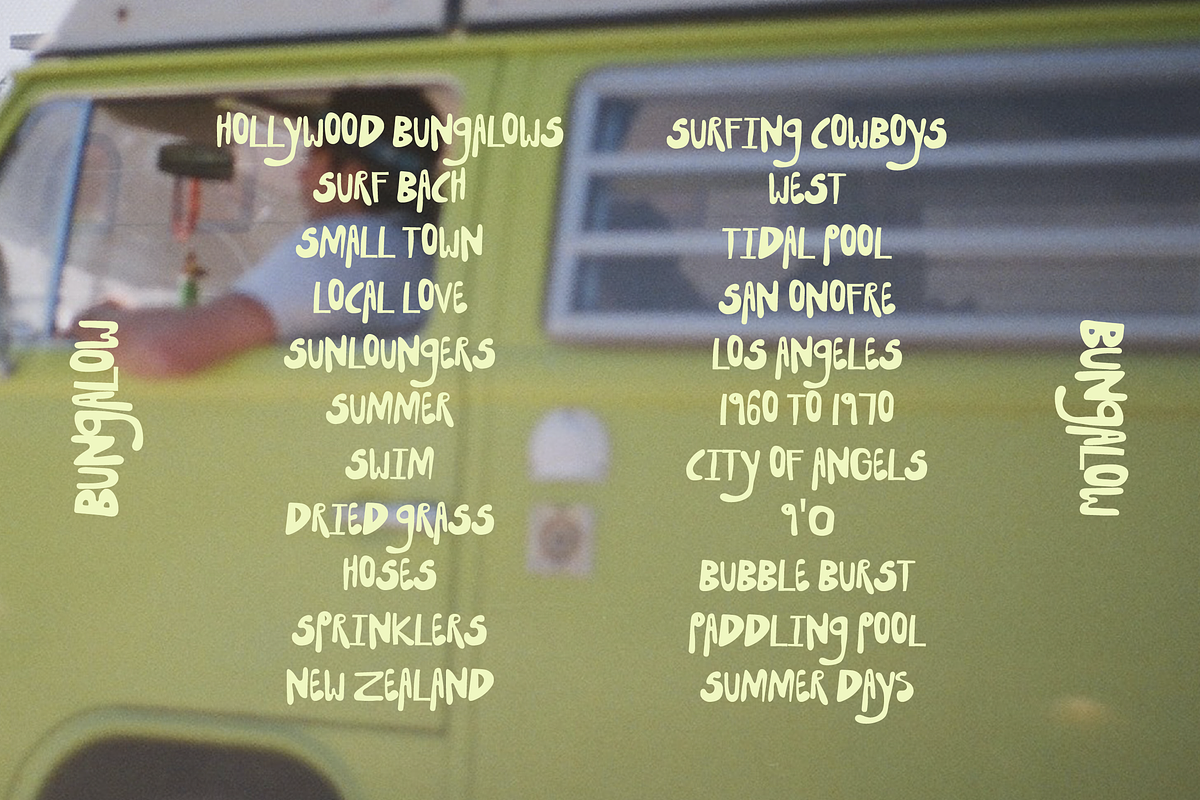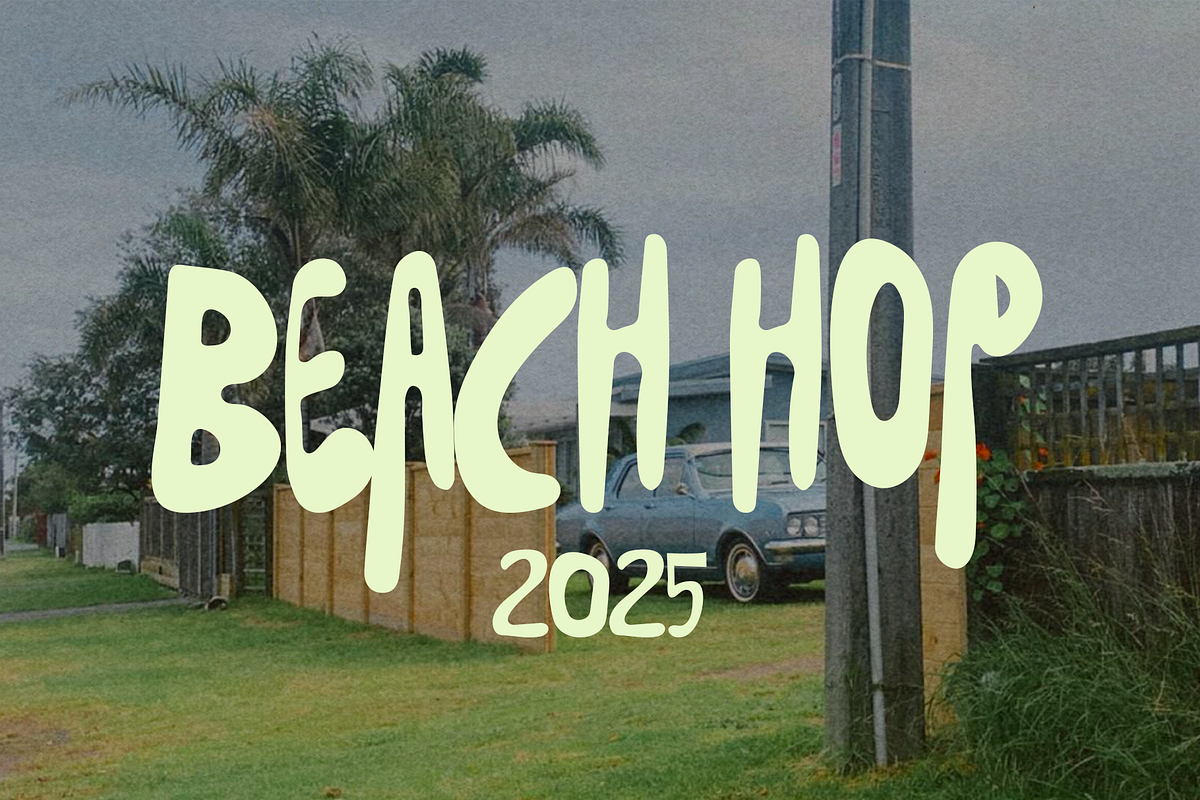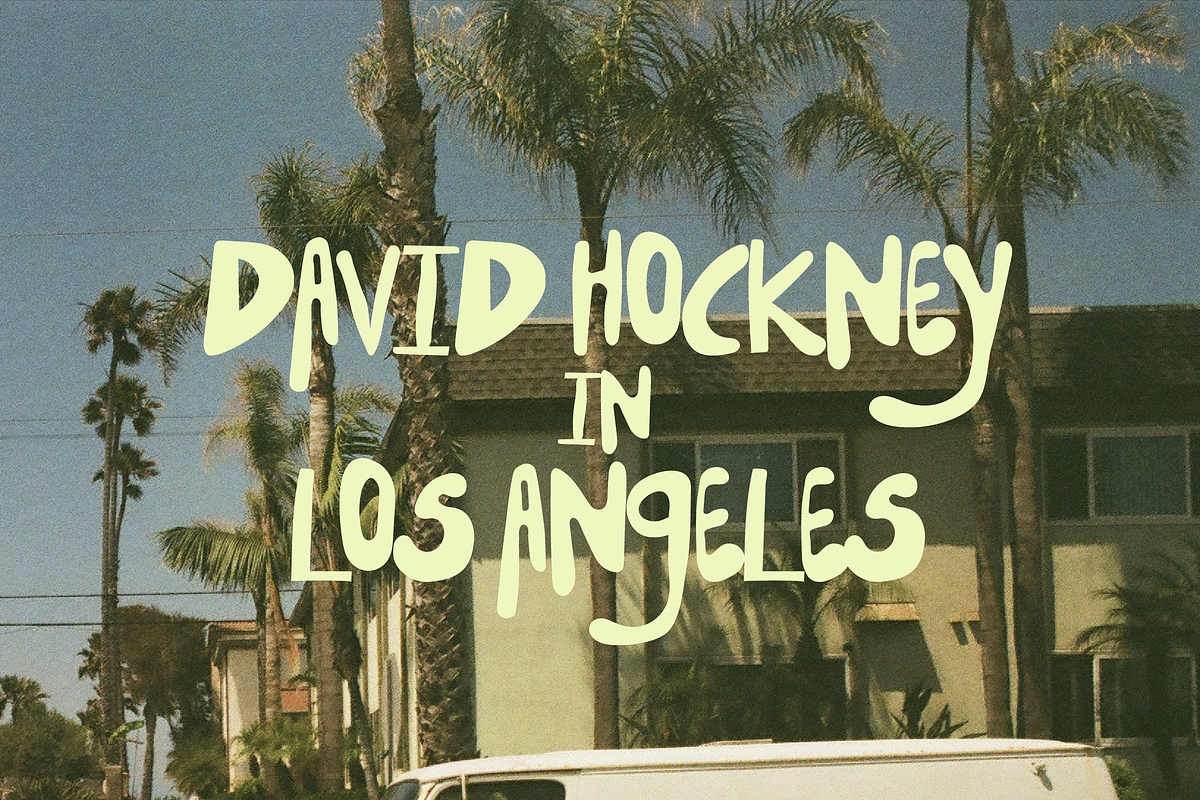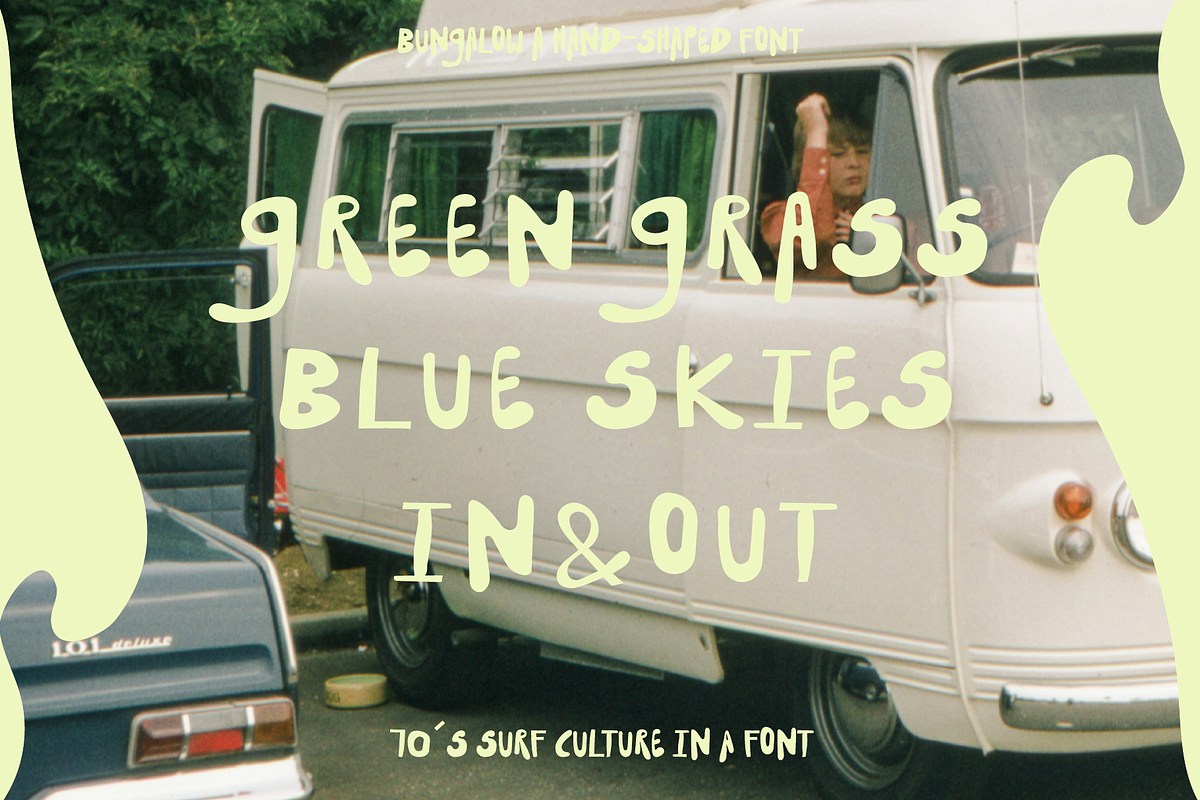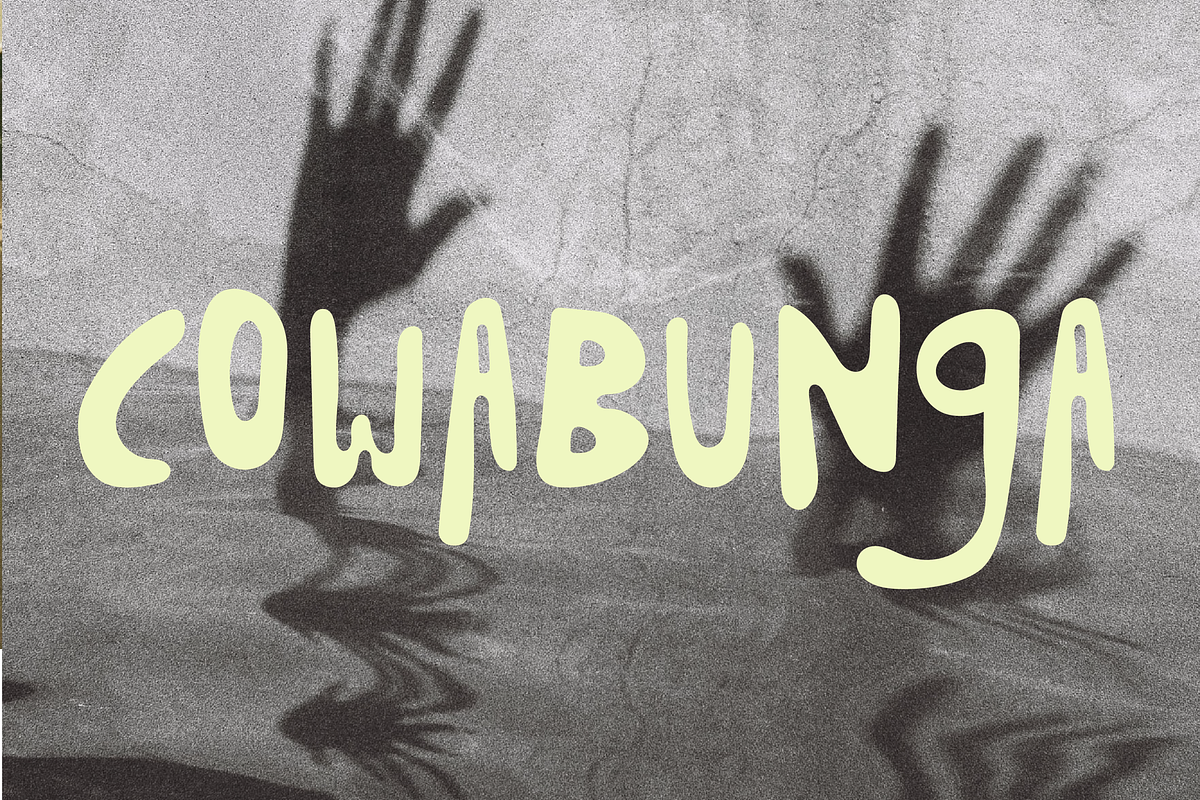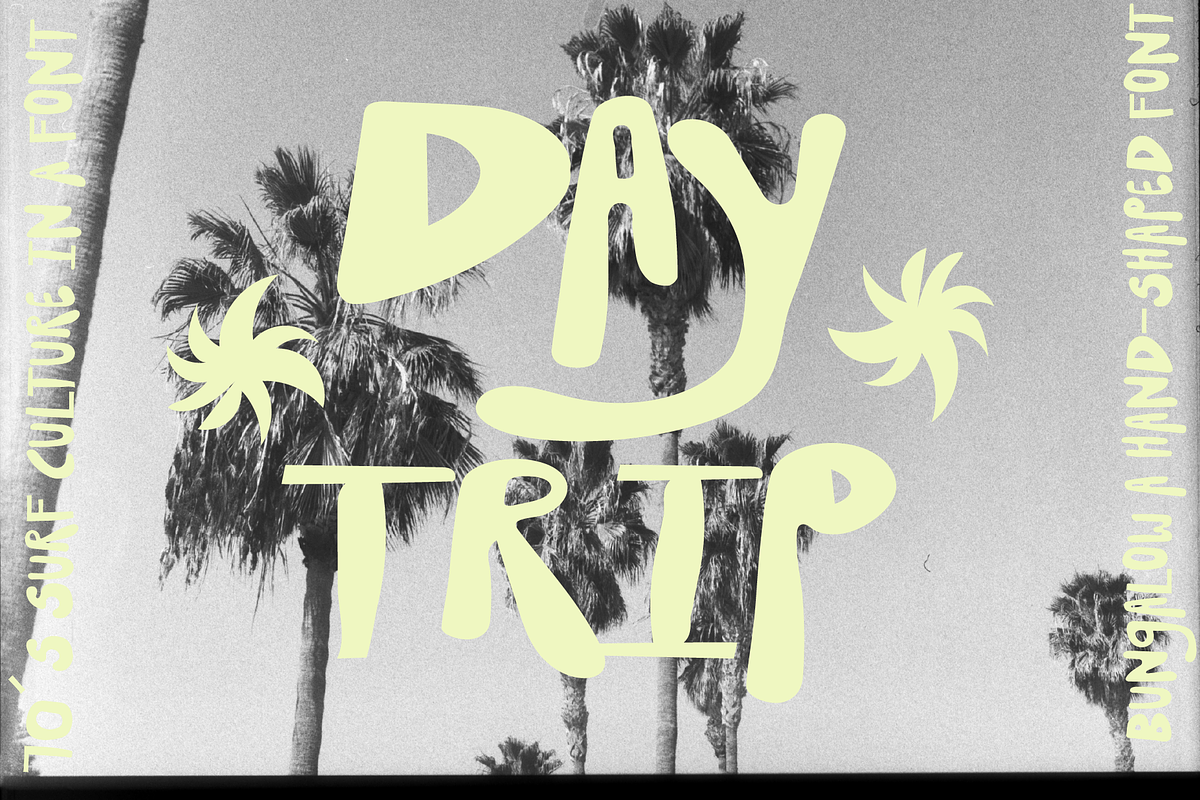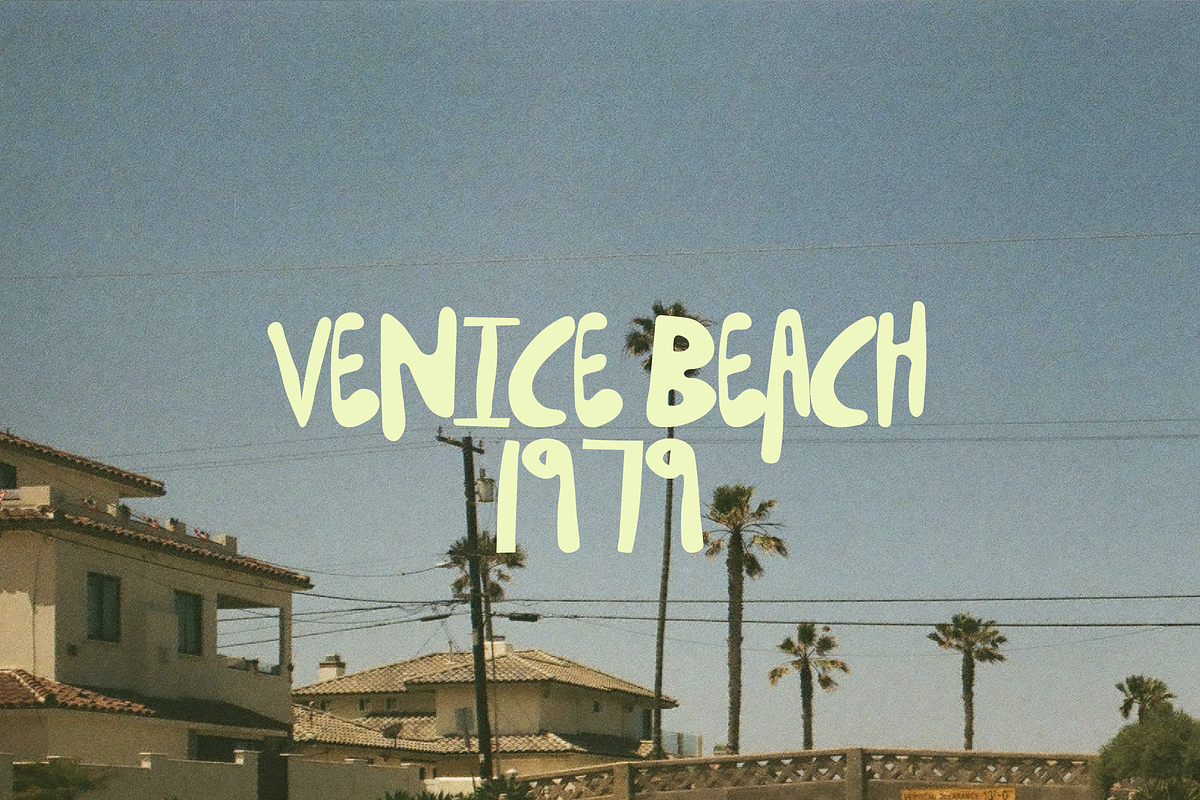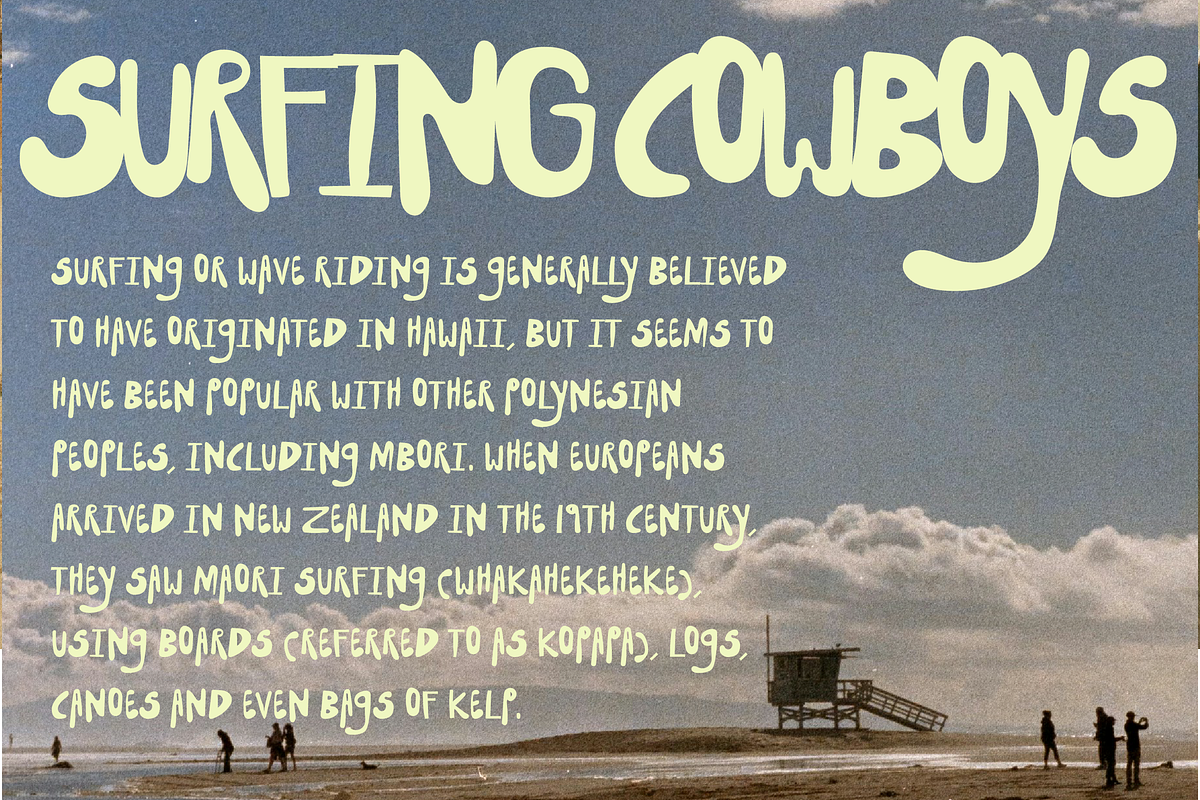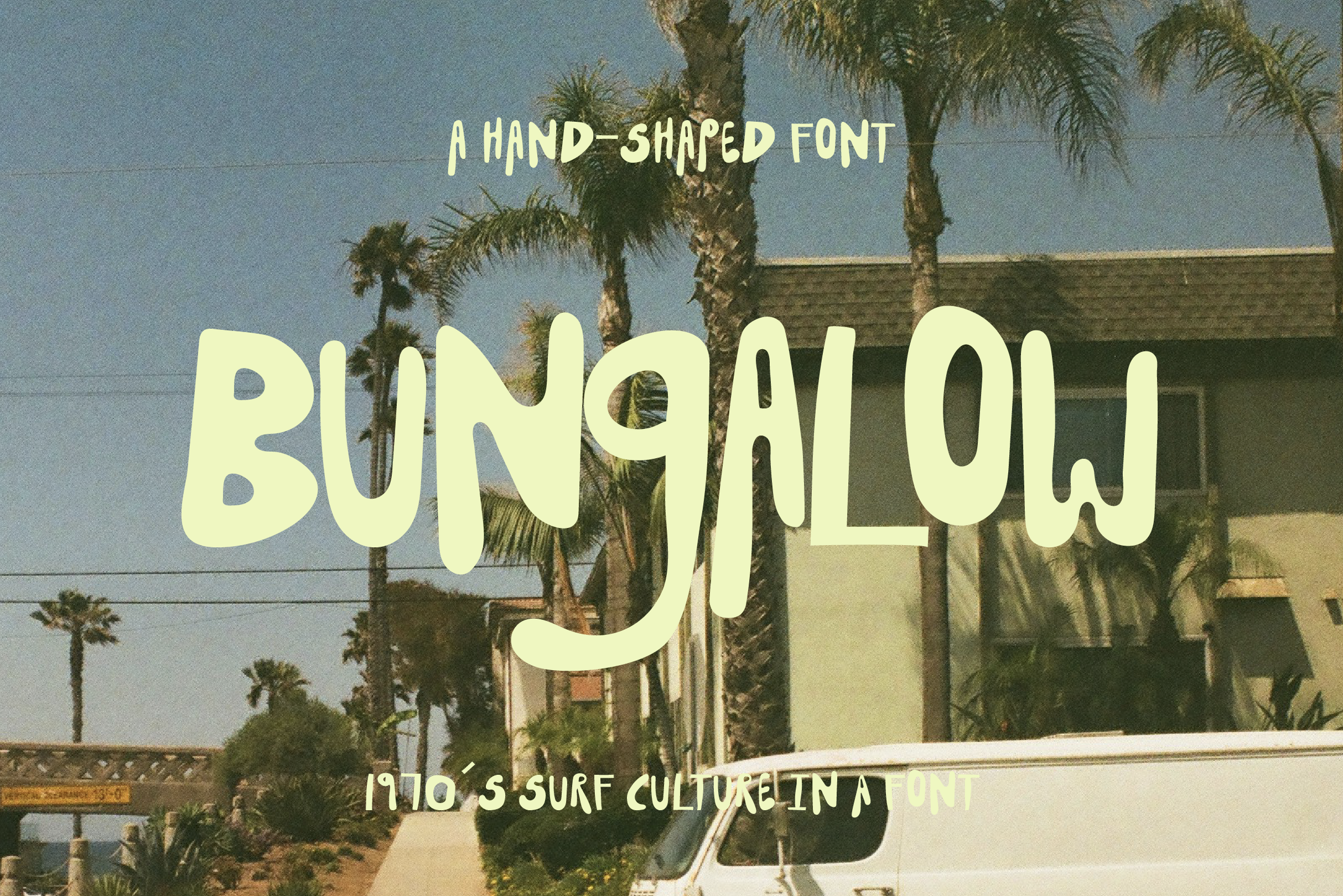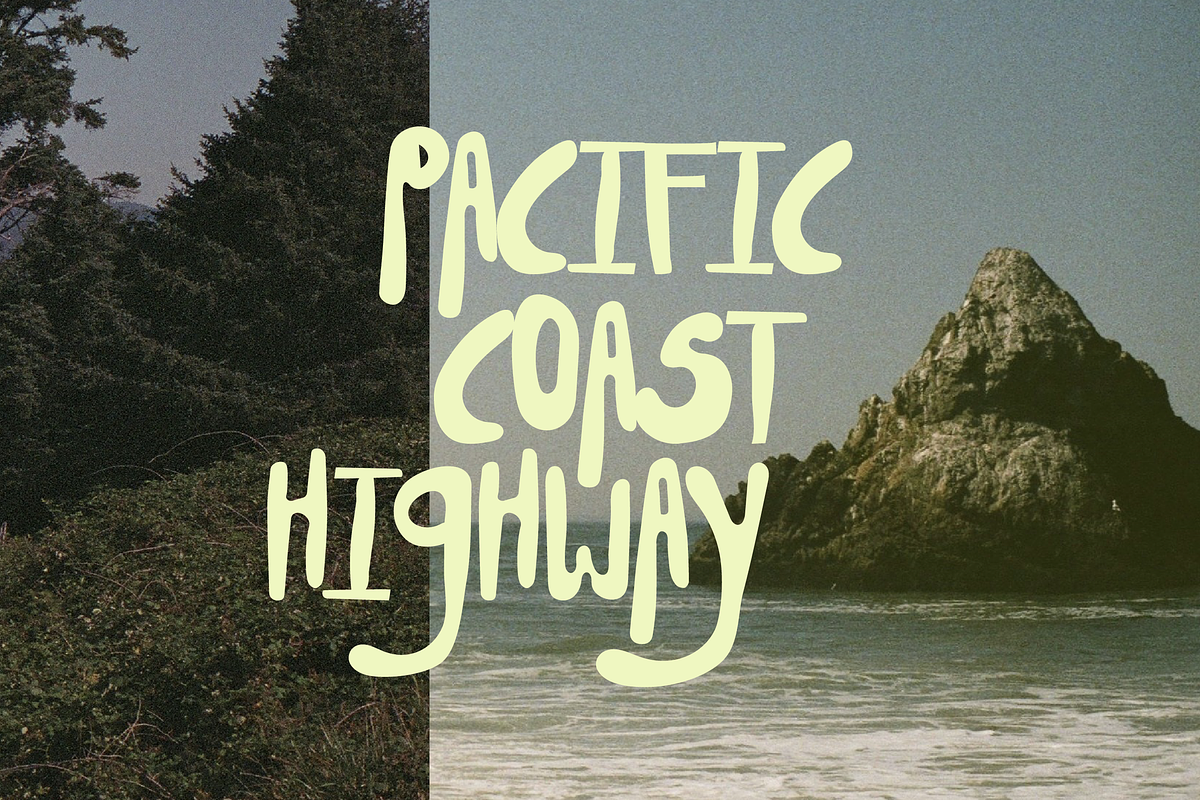
BUNGALOW | HAND DRAWN FONT
BUNGALOW, a hand-drawn font, draws inspiration from the blues, waves, the irregularities of life and one of Aotearoa's most charming surf spots, Whangamatā. The font also looks to classic surf shack bungalows in and around California in the 1970’s.
Initially crafted for a iconic long-board surfboard shaper & glasser, this display font serves as an extension of their hand-drawn logo.
With intentional irregularities typical of hand-drawing, alternate letters incl. non english glyphs and surf local-ness, BUNGALOW is the perfect display font to infuse classic surf culture or fluidity into any design project.
70's surf culture in a font - a hand-shaped font.